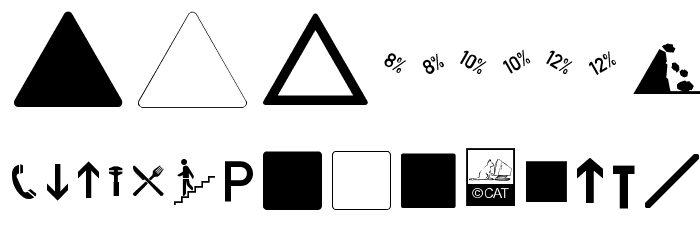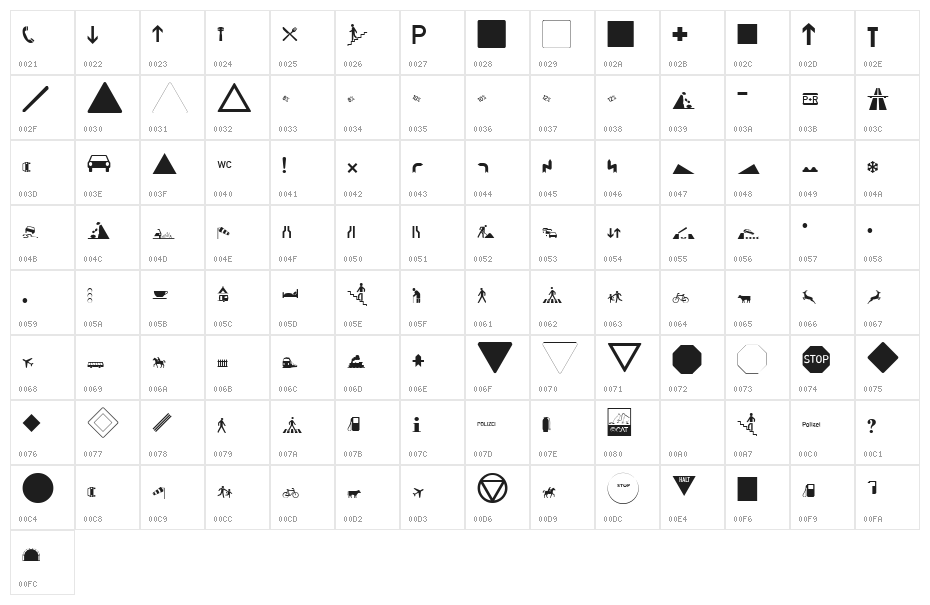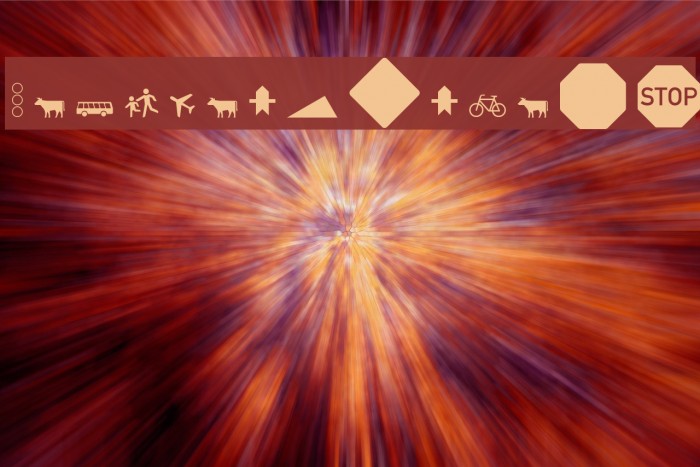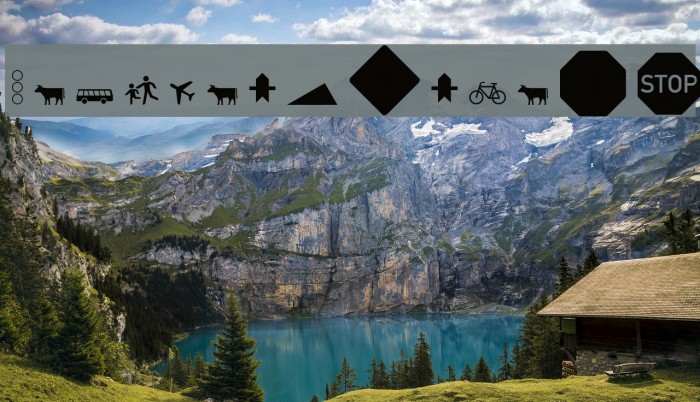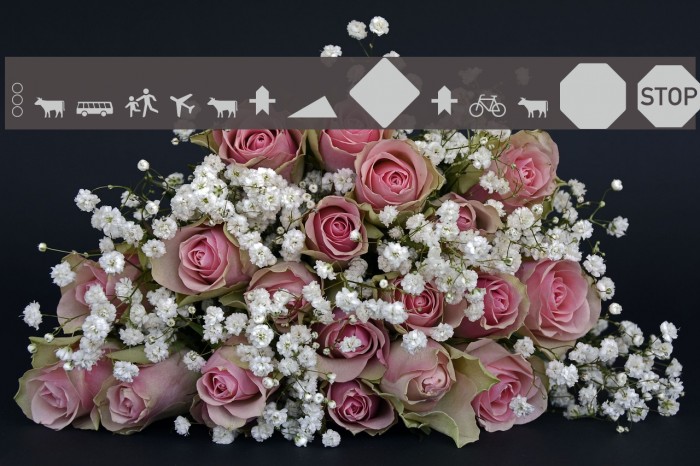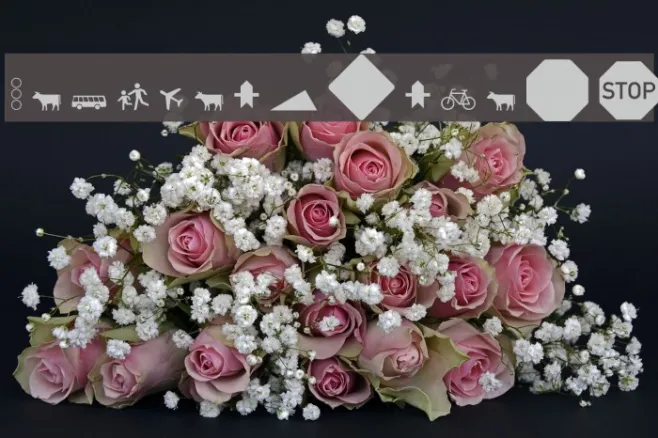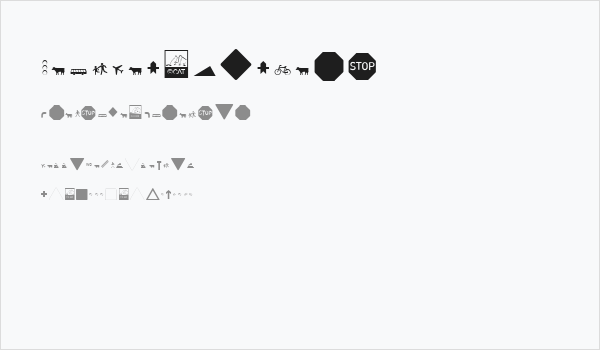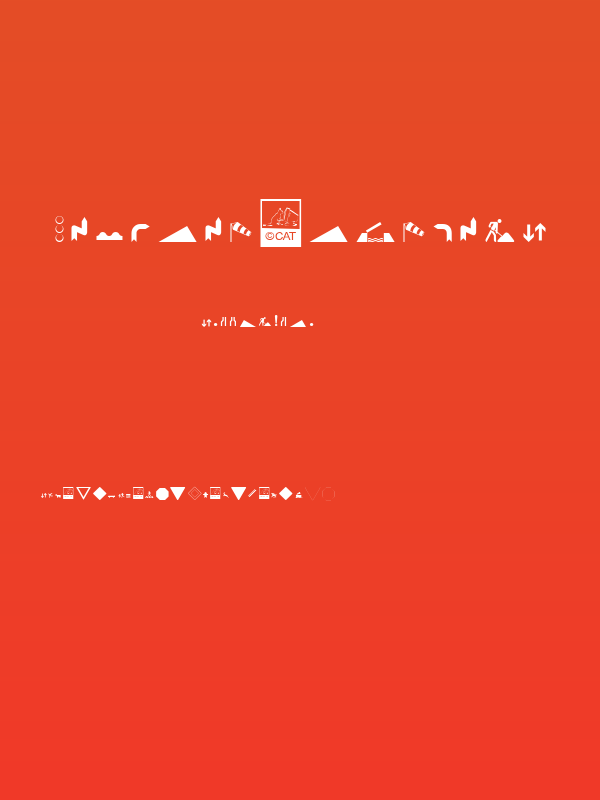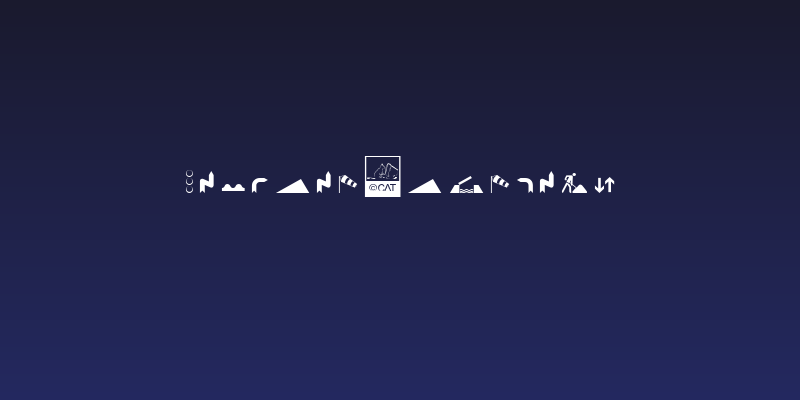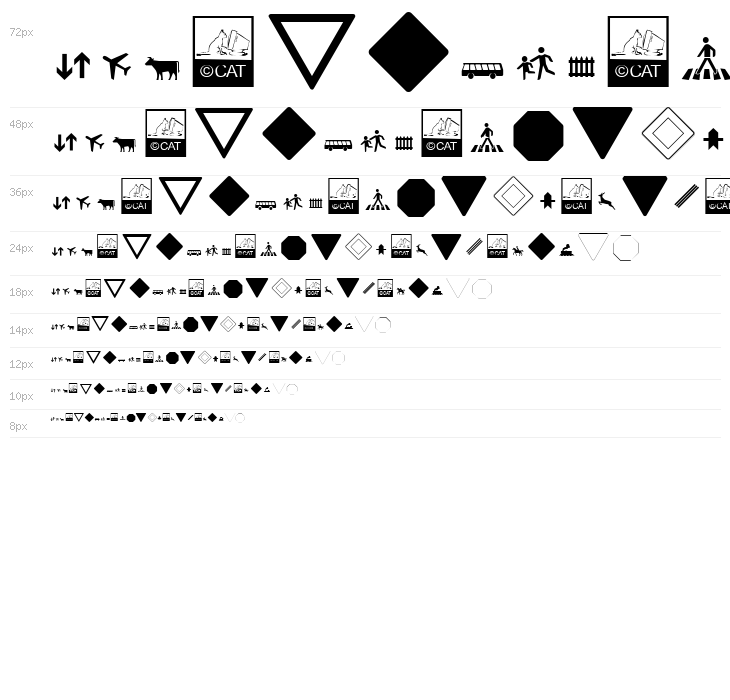
Zeichen Hundert Font
A pictogram-based dingbat font featuring a wide range of road signs, traffic symbols, and transportation-related icons. The glyphs include silhouettes of vehicles, pedestrians, animals, geometric traffic signs, and various directional arrows, all rendered in a bold, high-contrast style for maximum legibility.
Overall StyleFunctional, Modern, Pictographic
Use CaseIcons, Signage, Infographics, Maps
Proposed ProjectsWayfinding systems, transportation maps, educational materials, infographics, signage design, safety manuals.